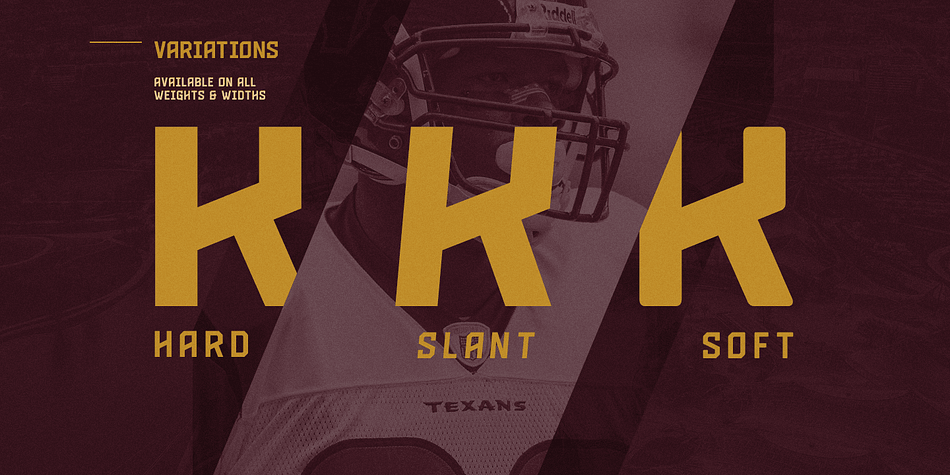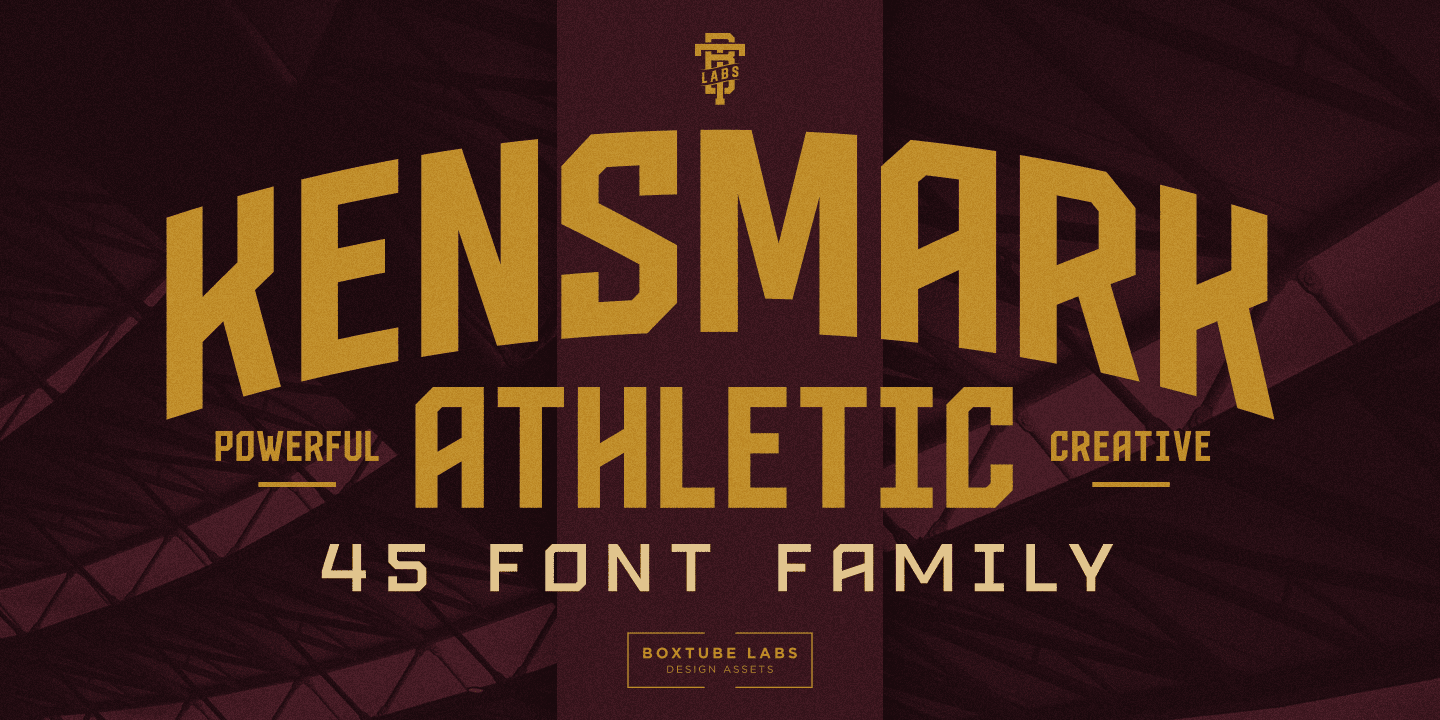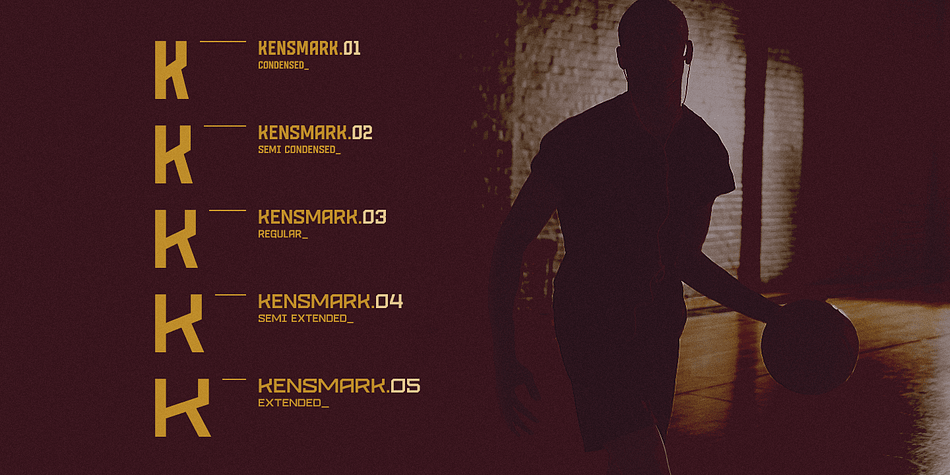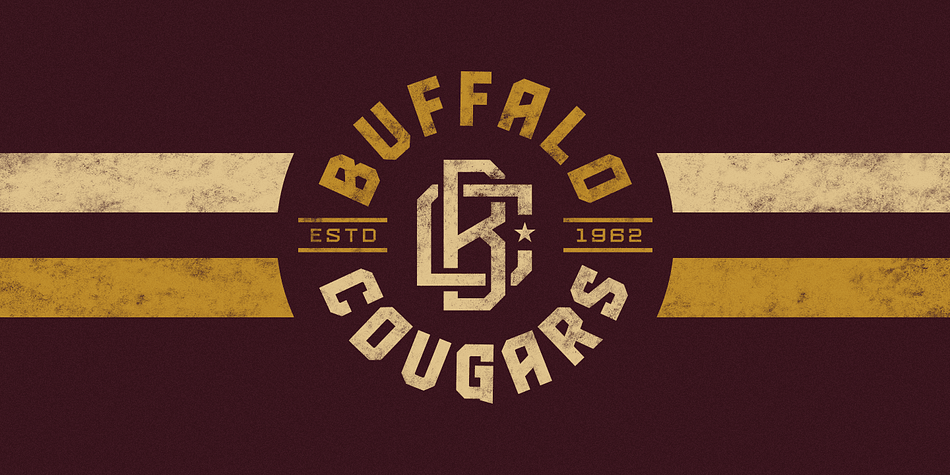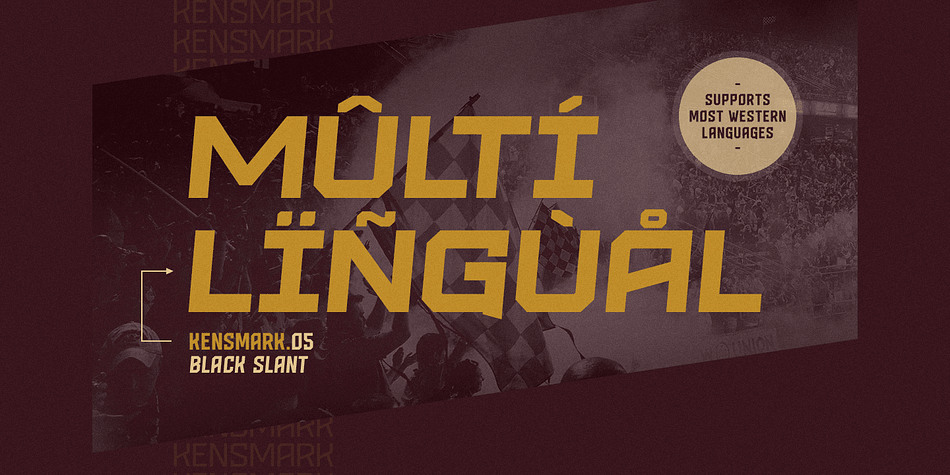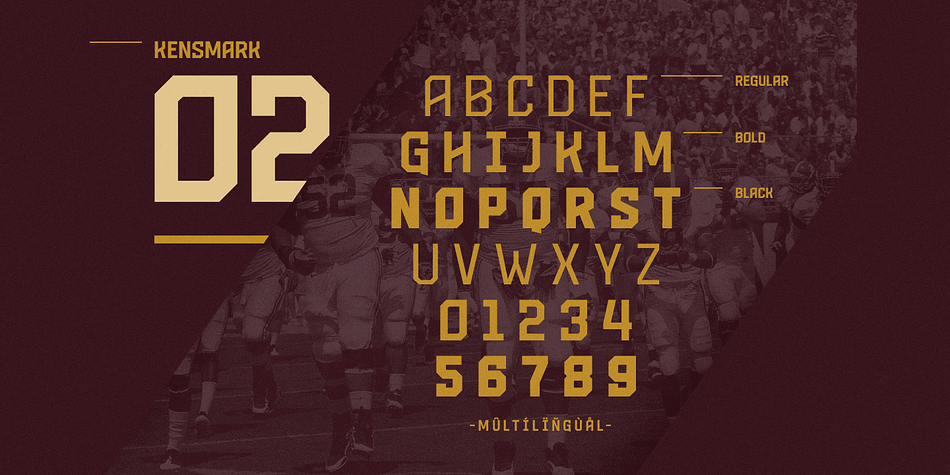
KENSMARK
Kensmark is a display sans font family. This typeface has forty-five styles and was published by BoxTube Labs.
“A kensmark is any feature or characteristic that makes someone or something instantly recognizable.”
Kensmark is a powerful and creative type family with a staggering 45 fonts. Thanks to a wide array of widths and weights it’s incredibly versatile and flexible. It’s perfect for logotypes, sports branding, posters, apparel design, magazine headlines, labels and so much more.
Kensmark features a basic latin character set including diacritics and punctuation, with support for most western languages including: Afrikaants, Basque, Breton, Catalan, Danish, Dutch, English, Finnish, French, Gaelic, German, Icelandic, Indonesian, Irish, Italian, Norwegian, Portuguese, Sami, Spanish, Swahili and Swedish.